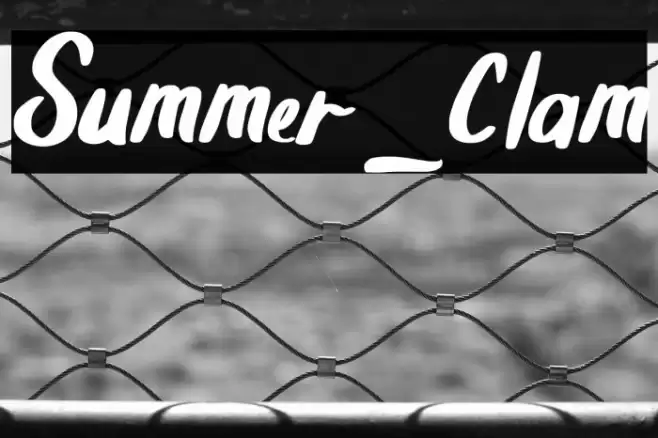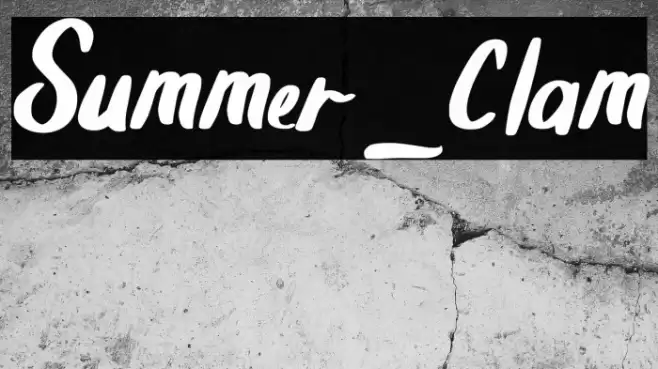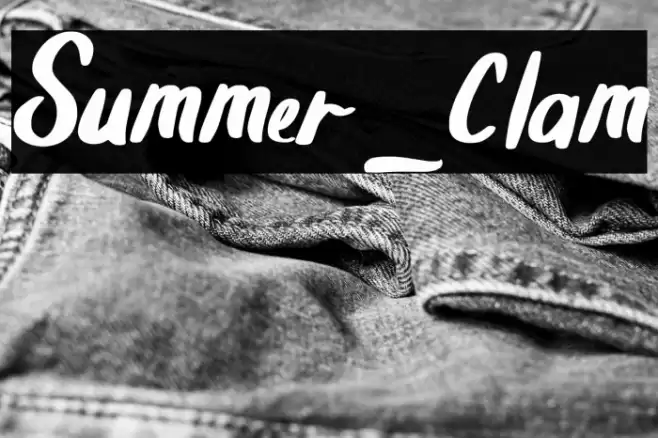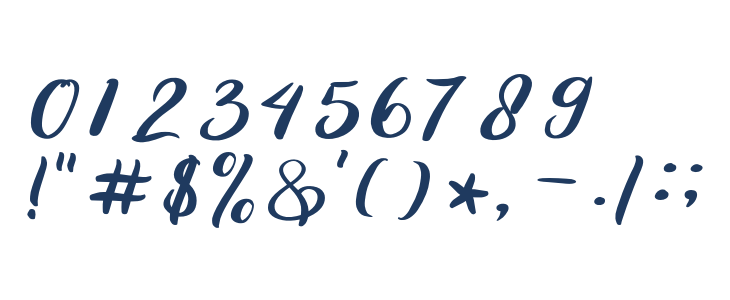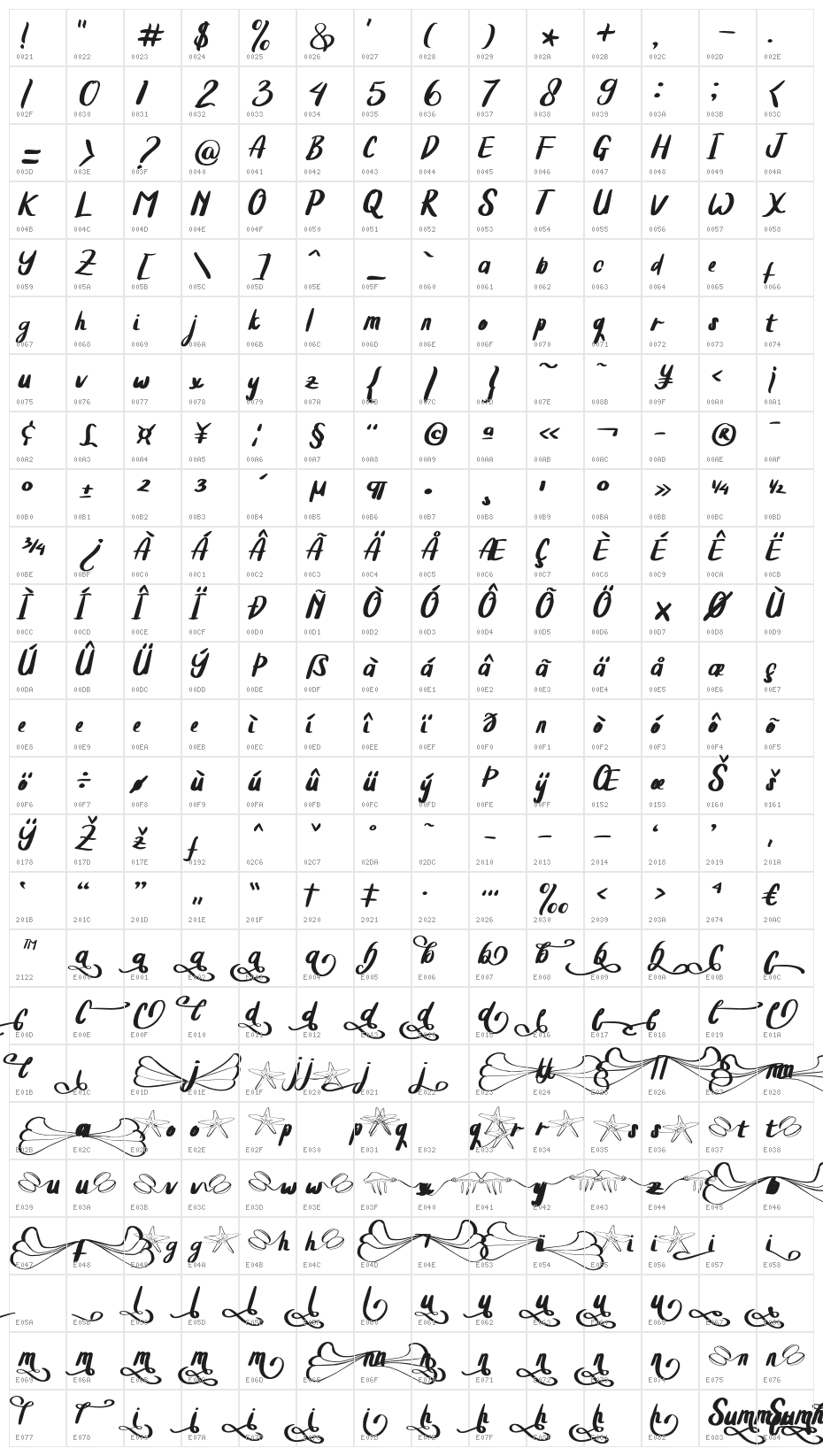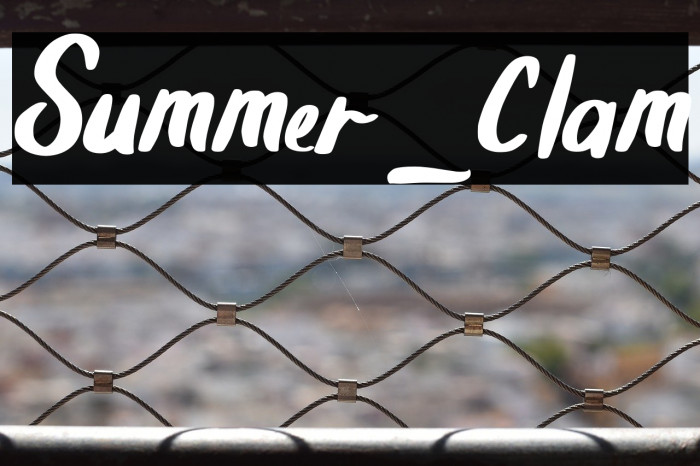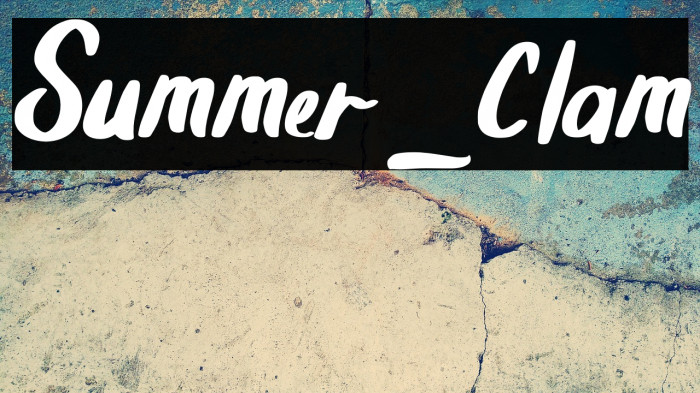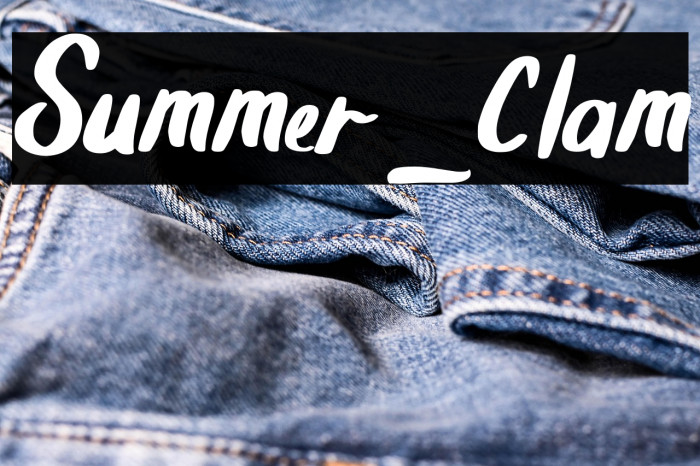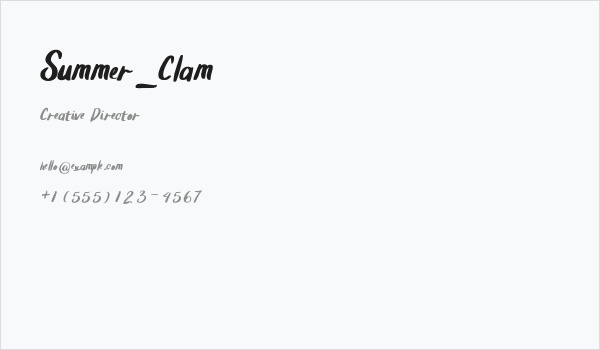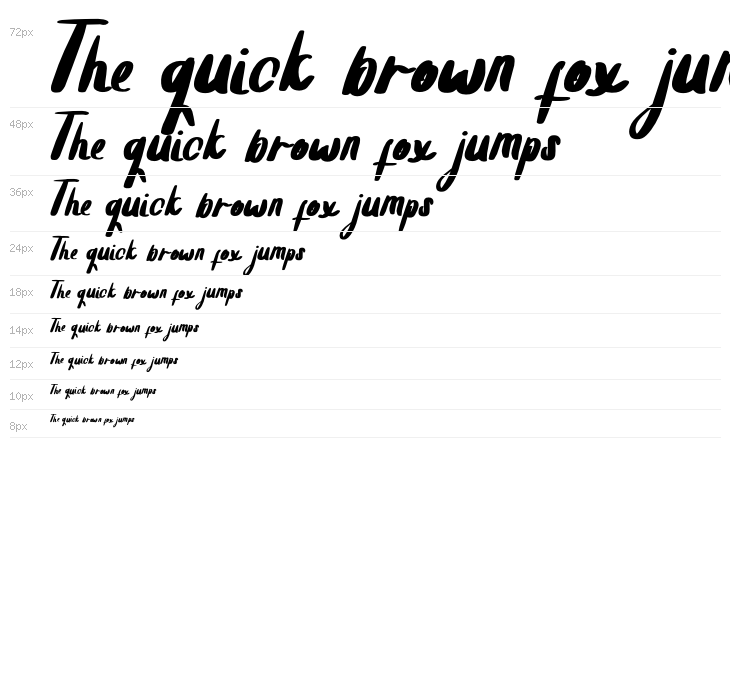
Summer_Clam Font
Summer_Clam Description
This font features a dynamic and expressive style, characterized by its bold and flowing script. The letters exhibit a hand-drawn quality, with smooth curves and varying stroke widths that create a sense of movement and energy. The uppercase letters are slightly more structured, while the lowercase letters have a more casual, freeform appearance. The numerals and special characters maintain the same lively aesthetic, ensuring consistency across all elements. This font is ideal for projects that require a personal touch or a sense of spontaneity.
A bold, expressive script font with a hand-drawn, dynamic style from Regular fonts.
- Proposed Projects: Perfect for branding, invitations, greeting cards, and artistic projects that require a personal and lively touch.
- Use Case: Logos, Headlines, Artistic projects